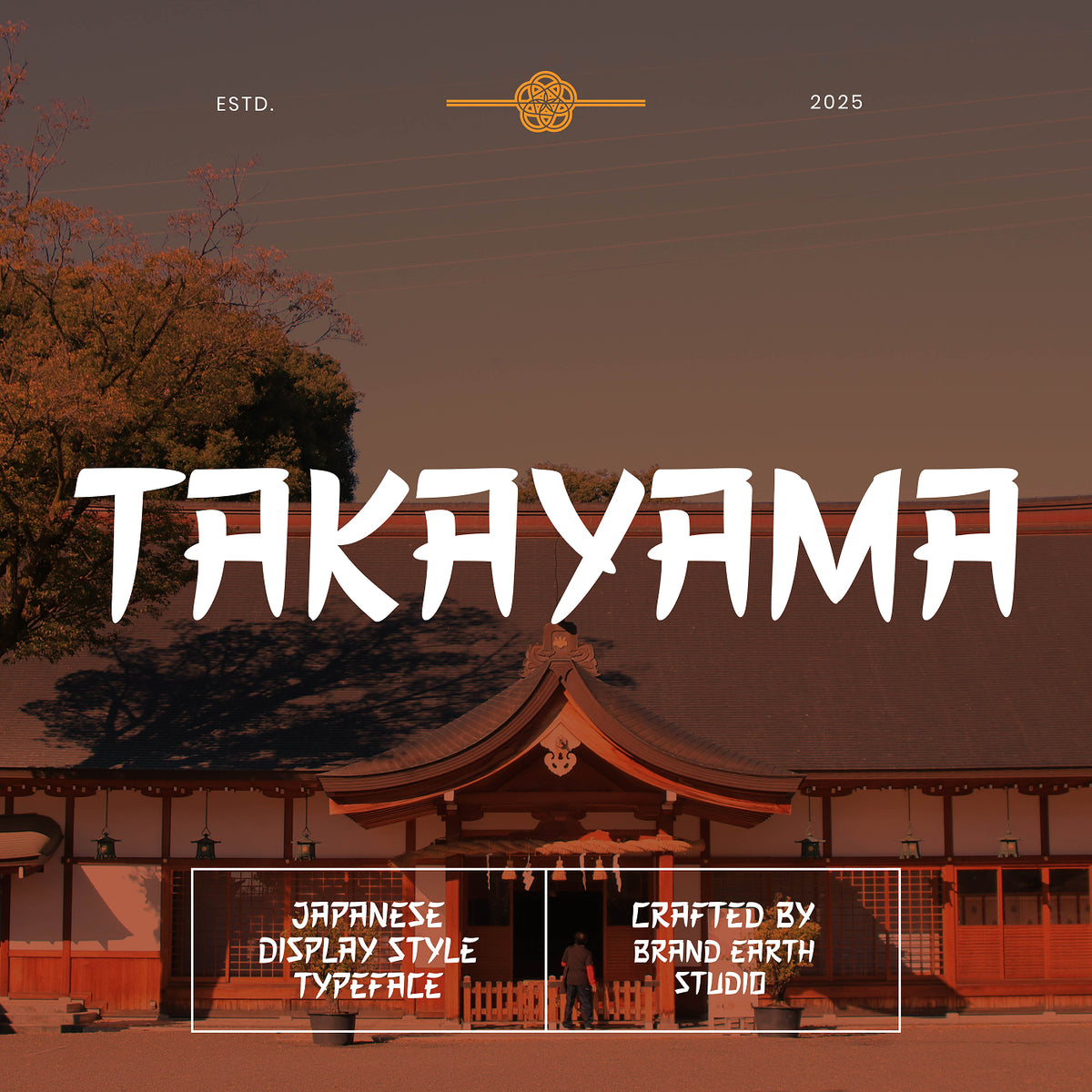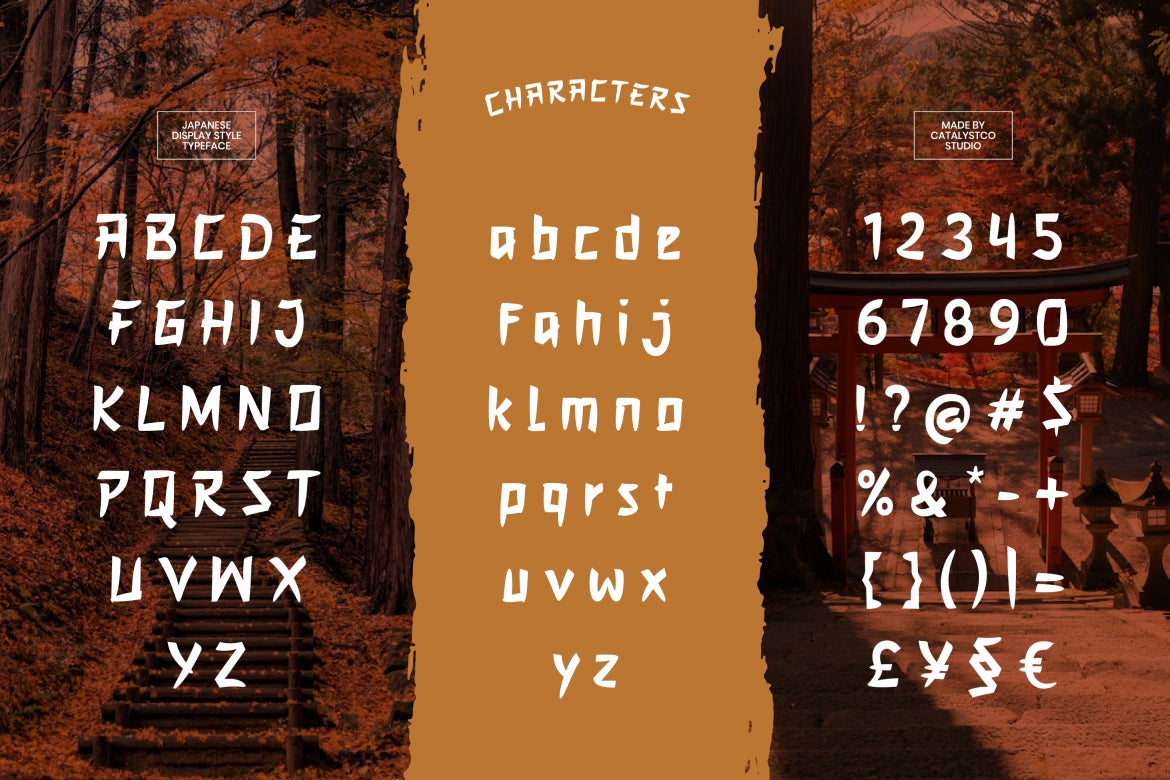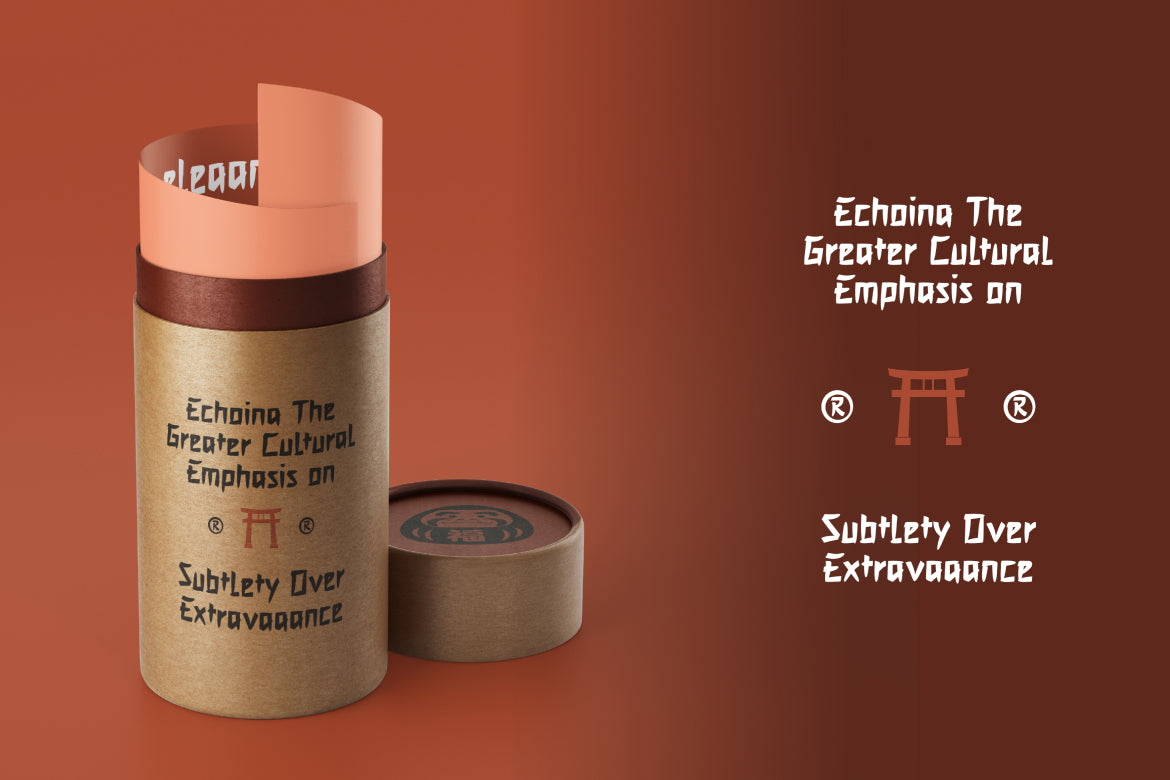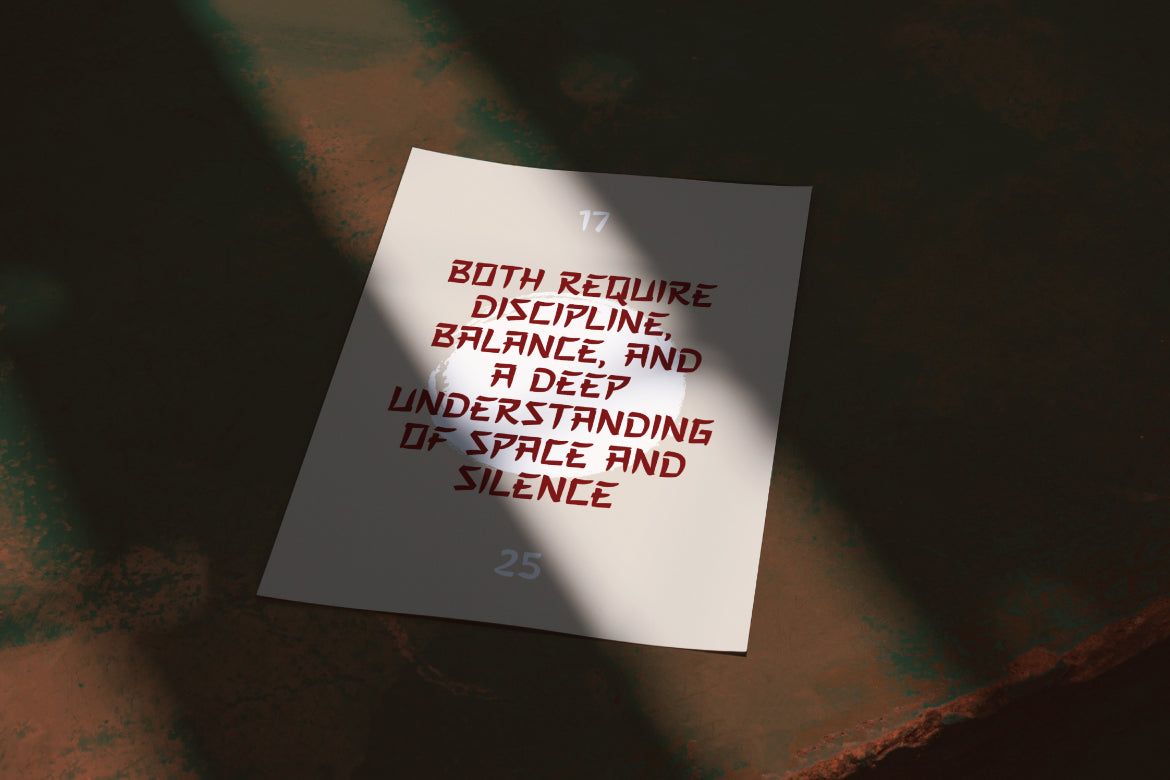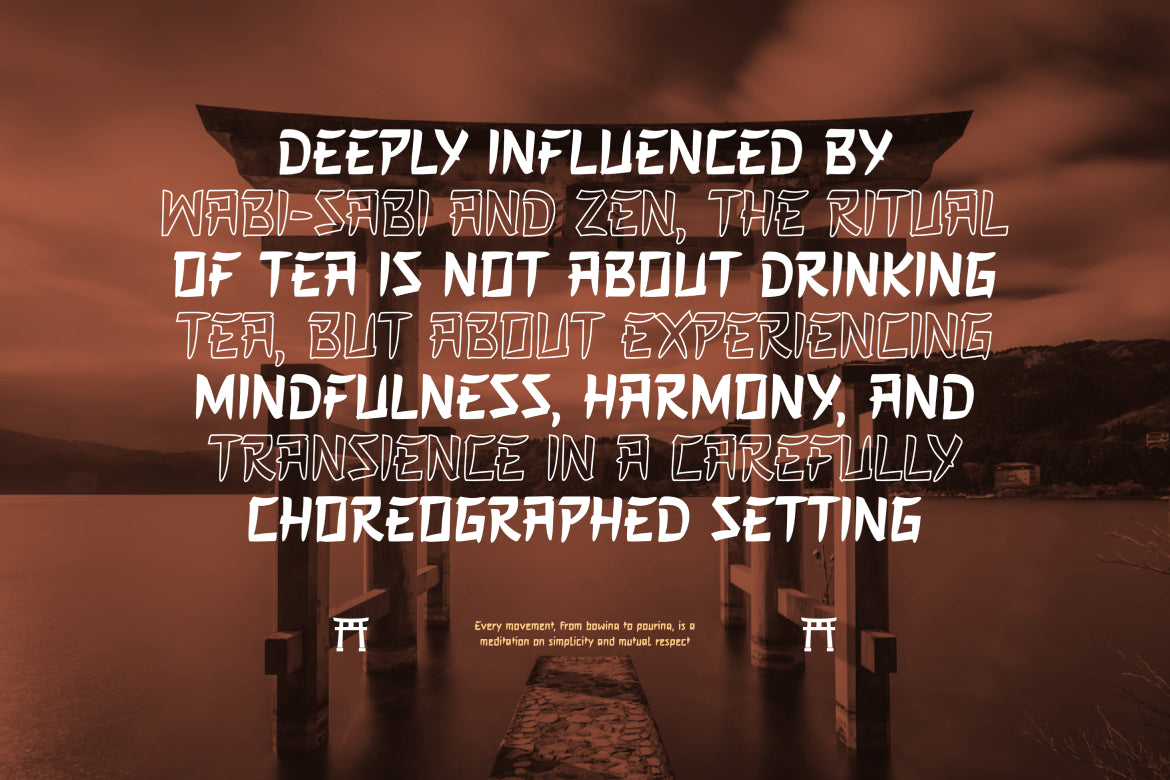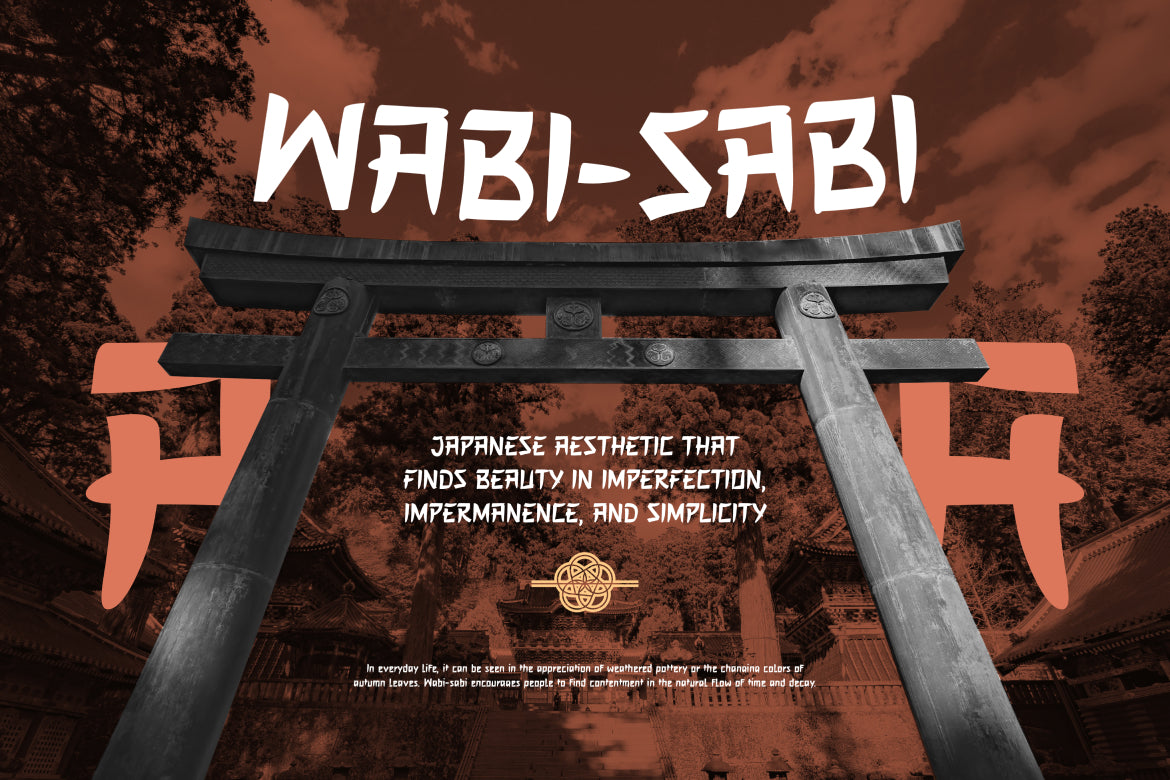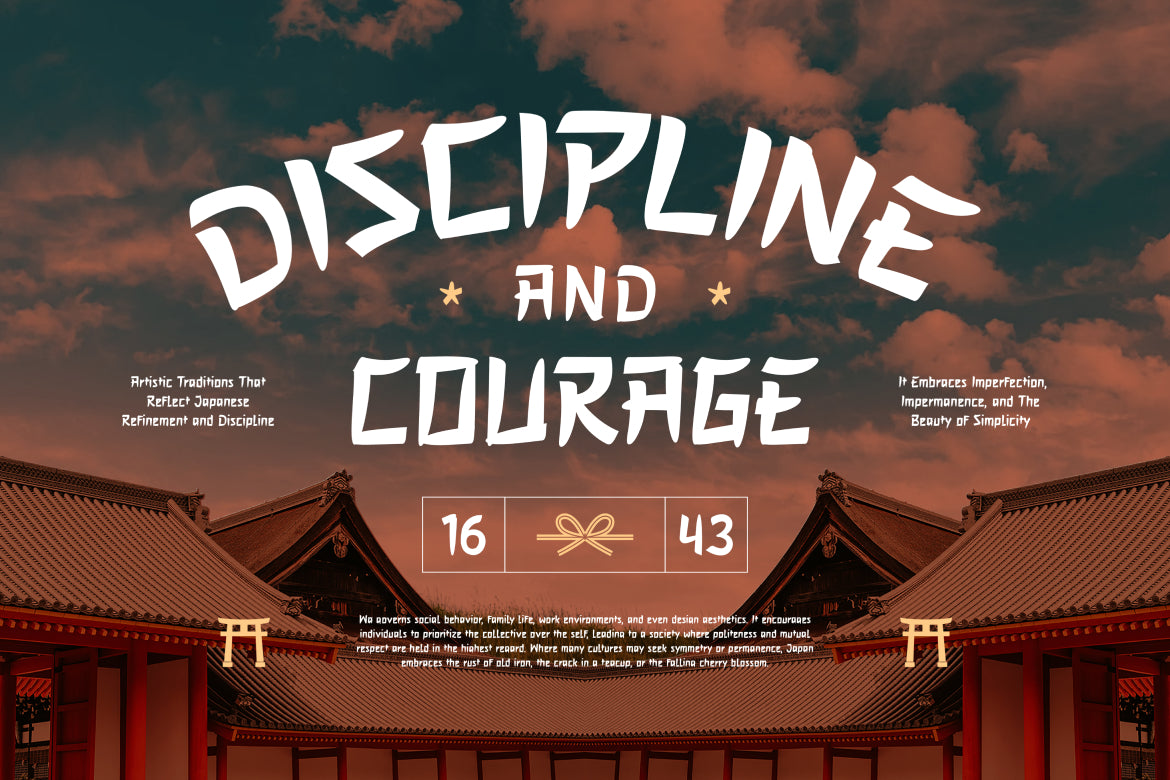
Takayama Japanese Display Typeface Font
TAKAYAMA is a sharp, refined display typeface deeply rooted in traditional Japanese aesthetic while shaped for the modern creative market. The style is bold and structured, evoking a sense of strength, heritage, and architectural grace. It carries a clean yet ceremonial presence, reminiscent of ancient temples, torii gates, and cultural symbolism. This font channels a grounded and spiritual energy, making it suitable for designers and creators seeking a refined, culturally rich identity. Fits seamlessly into brand worlds that want to communicate depth, tradition, and minimal elegance think luxury skincare, artisan tea packaging, travel magazines, restaurant logos, and cultural event posters.
Takayama is a bold, structured display typeface influenced by traditional Japanese design elements. It includes uppercase and lowercase characters, ligatures and alternates, numerals and punctuation, and multilingual support, available in TTF, OTF, and WOFF formats.